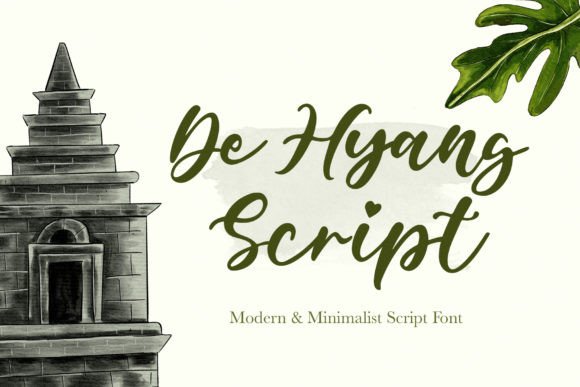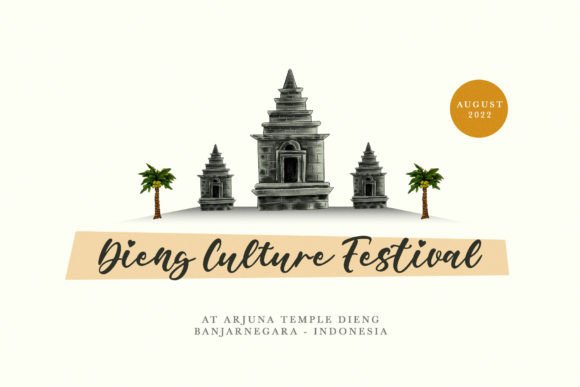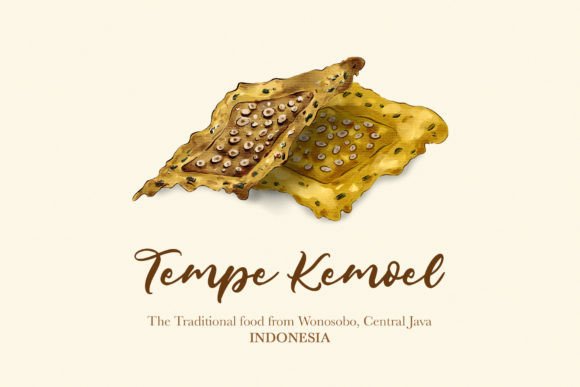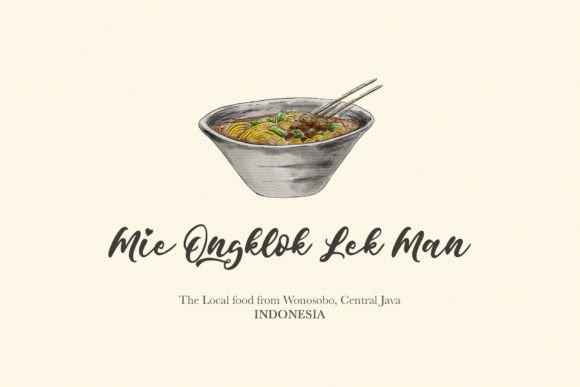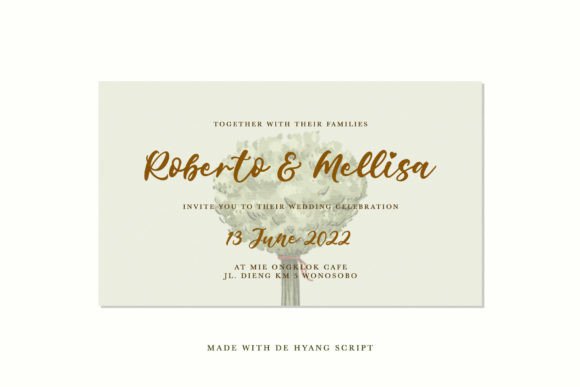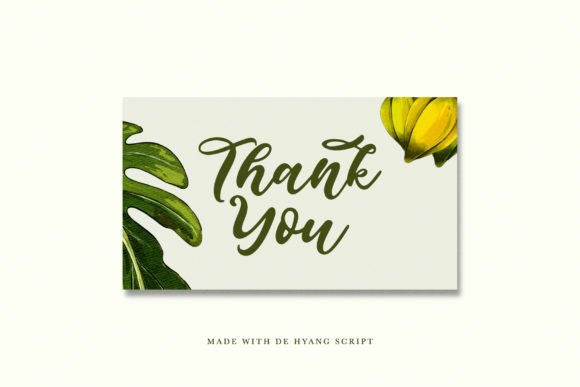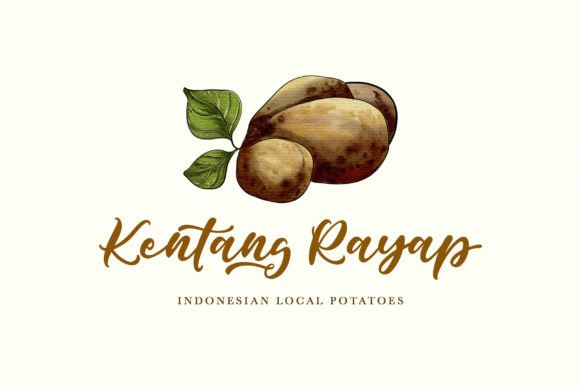
De Hyang Script Font
About De Hyang Script Font
“De Hyang Script” is a cool and modern handwritten script font that offers a natural and unique style. This font’s versatility makes it well-suited for a wide range of design applications, and the possibilities are limited only by your imagination.
The appeal of “De Hyang Script” lies in its contemporary and handwritten style, which adds a touch of authenticity and personality to your text. It can be used effectively in various design contexts, making it a versatile choice for creative work.
One of the standout features of “De Hyang Script” is its ability to adapt to different design ideas. Whether you’re working on branding, logo design, product packaging, invitations, posters, or any other project, this font’s modern and unique style allows you to explore a wide array of design possibilities.
When you incorporate “De Hyang Script” into your designs, you have the freedom to let your creativity run wild. This font can infuse a sense of personality and authenticity into your text, making it a valuable asset in your design toolkit.
In summary, “De Hyang Script” is a font that offers a cool and modern handwritten style suitable for a wide range of design projects. Its natural and unique appearance makes it a versatile choice, and you can confidently use it to bring your creative ideas to life, as the only limit is your imagination.